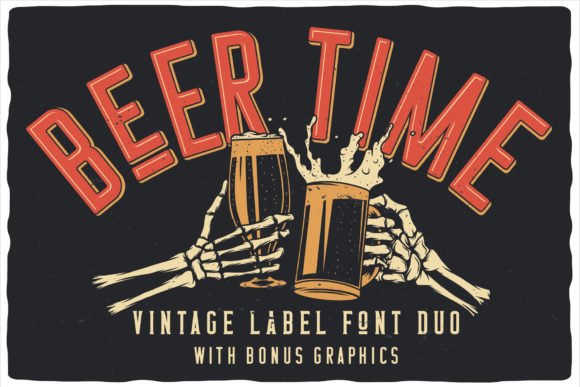
Tap into Your Creativity with Beer Time Font
It’s late at night, and you’re staring at your computer screen, searching for the perfect font to give your design that extra oomph. The cursor blinks, and your mind starts racing with possibilities. Suddenly, you stumble upon Beer Time Font – a bold, vintage-styled display font that screams to be used.
Beer Time Font is designed to bring a touch of nostalgia and sophistication to your branding, packaging, invitations, and more. Its unique style is perfect for creating eye-catching labels, posters, and logos that stand out from the crowd. Whether you’re a seasoned designer or just starting out, Beer Time Font is a valuable addition to your toolkit.
With Beer Time Font, you’ll be able to elevate your designs and make a lasting impression on your audience. So why settle for a generic font when you can tap into the unique charm of Beer Time Font?
Beer Time Font Key Features
- Font Family: Beer Time Font is a unique, hand-drawn sans-serif font designed to evoke the feeling of a cold beer on a hot day.
- Size: Beer Time Font comes in 5 different font sizes: Regular, Italic, Bold, Bold Italic, and Outline, making it versatile for various design needs.
- Unique Characteristics: The font features a distressed, hand-crafted look with subtle imperfections, giving it a unique and eye-catching appearance.
Design Review: Beer Time Font
Overall, I think Beer Time Font is a unique and quirky font that can add some personality to your design. ✨ It’s perfect for a craft brewery, a bar, or even a food truck. The font has a fun, laid-back vibe that’s sure to grab attention.
- ✨ The font’s irregular shape and letterforms give it a hand-drawn feel, which can be really charming.
- ✨ The font comes in a range of weights and styles, from light to bold, which makes it versatile and easy to use.
- ✨ The font’s ligatures and swashes add a touch of elegance and sophistication.
- ⚠️ The font’s irregular shape and letterforms can make it difficult to read at small sizes or in low-light conditions.
- ⚠️ The font’s unique style may not be suitable for all types of designs or audiences.
Overall, I think Beer Time Font is a great choice for designs that need a little extra personality. Just be sure to use it thoughtfully and consider the limitations.
The Beer Time Font is ideal for designs related to beer, brewing, and nightlife. Use it to create eye-catching headlines, labels, and signage.
Some common use cases include:
- Beer label design
- Taproom signage
- Brewery branding